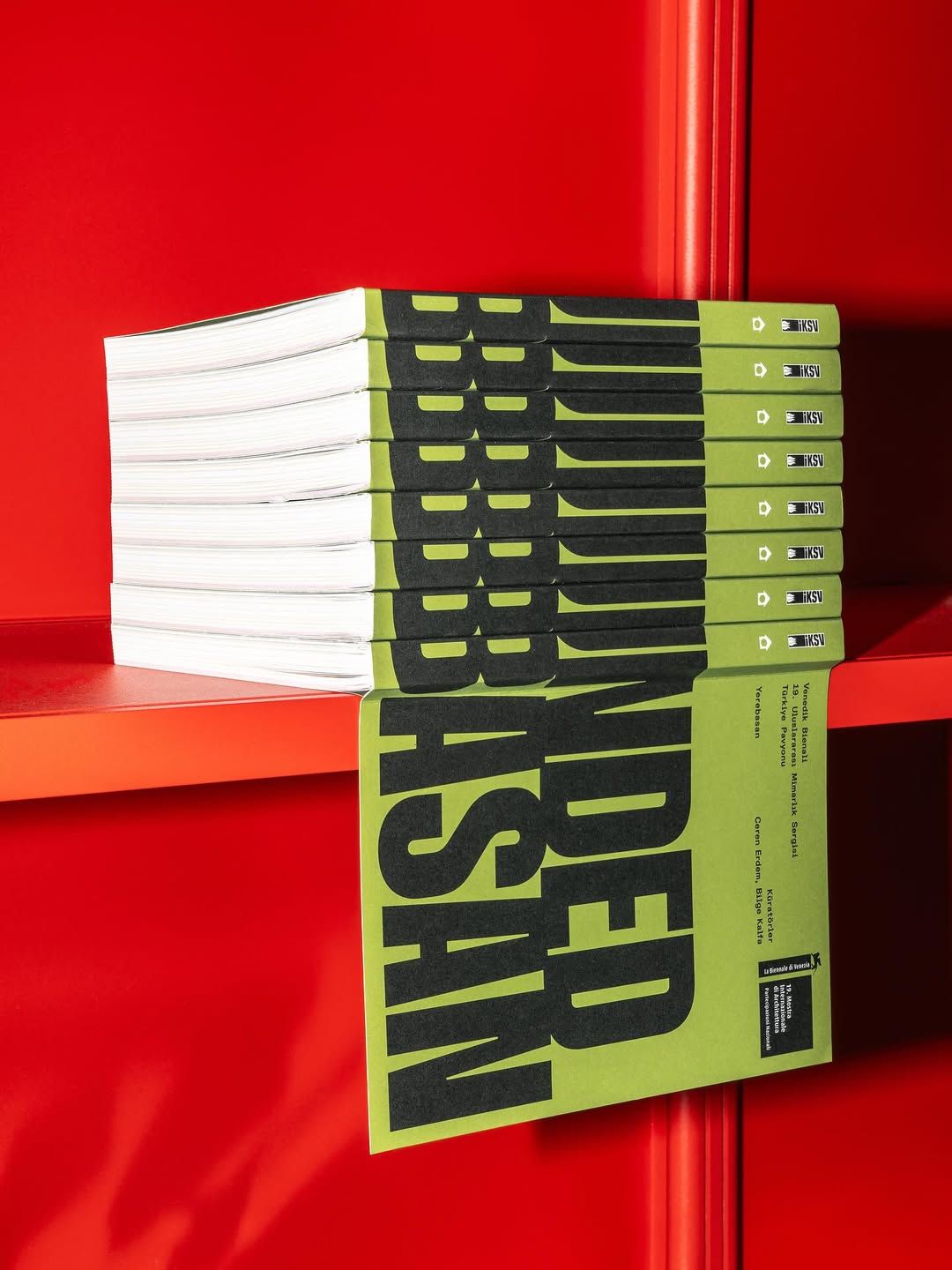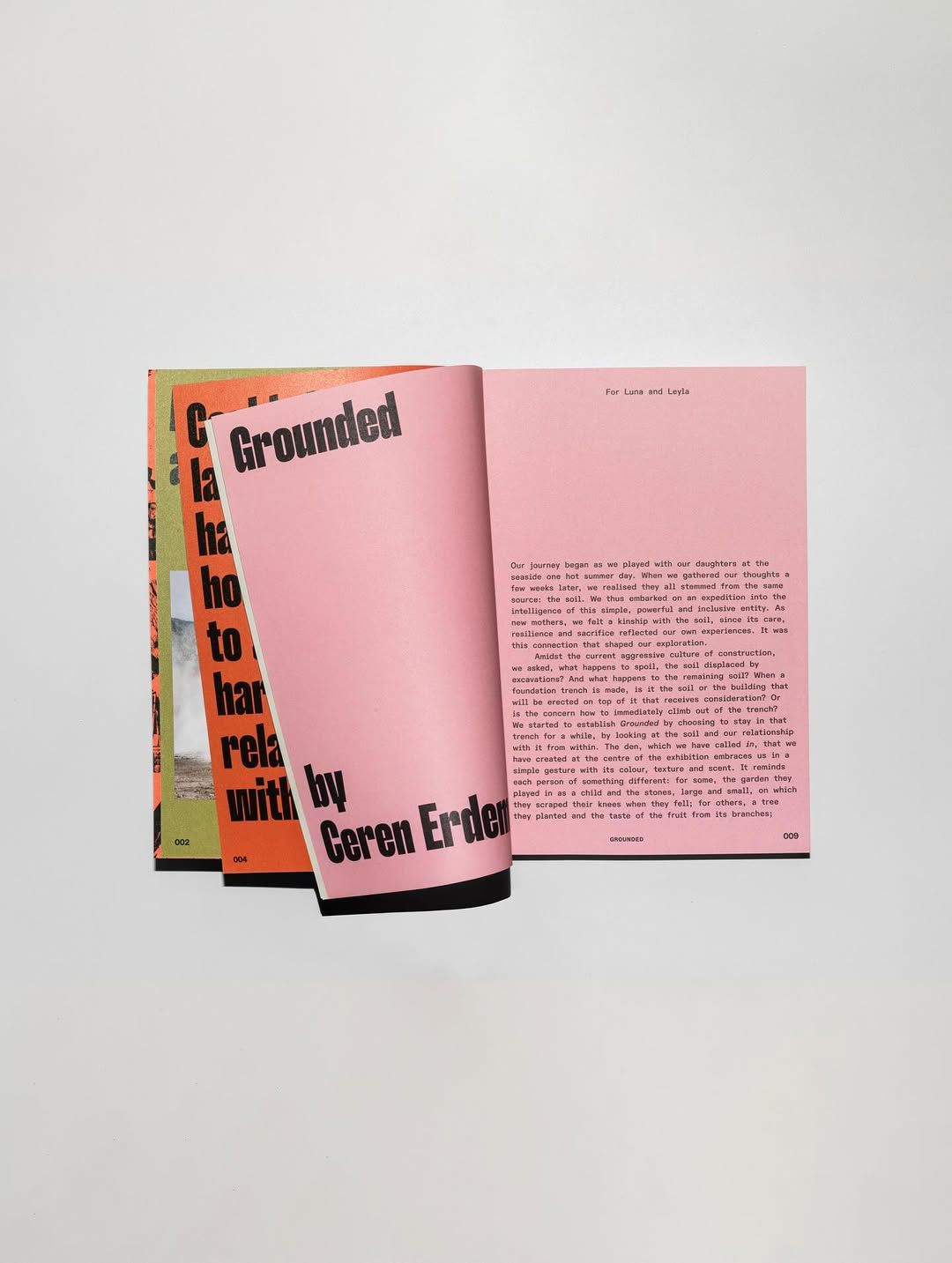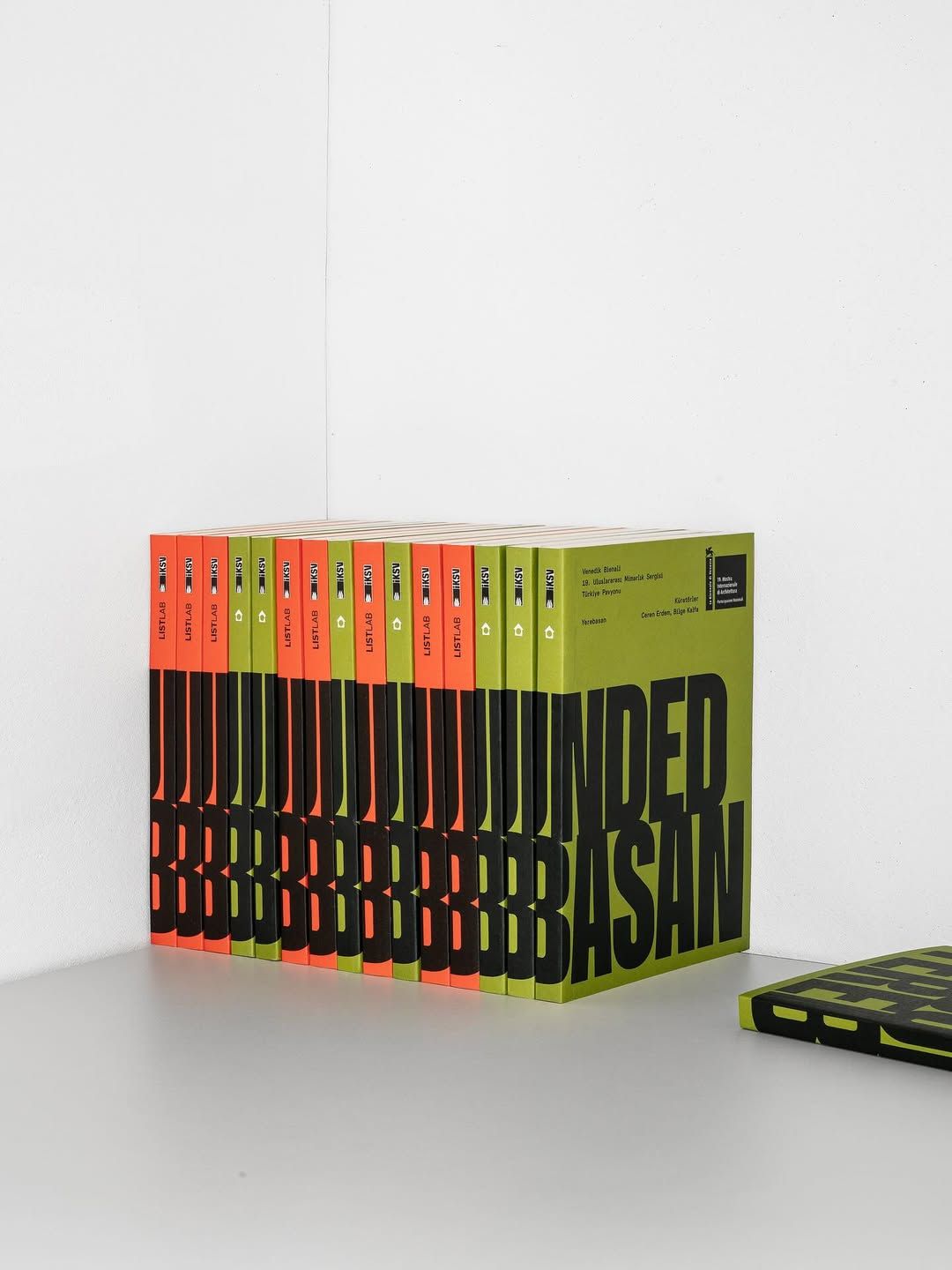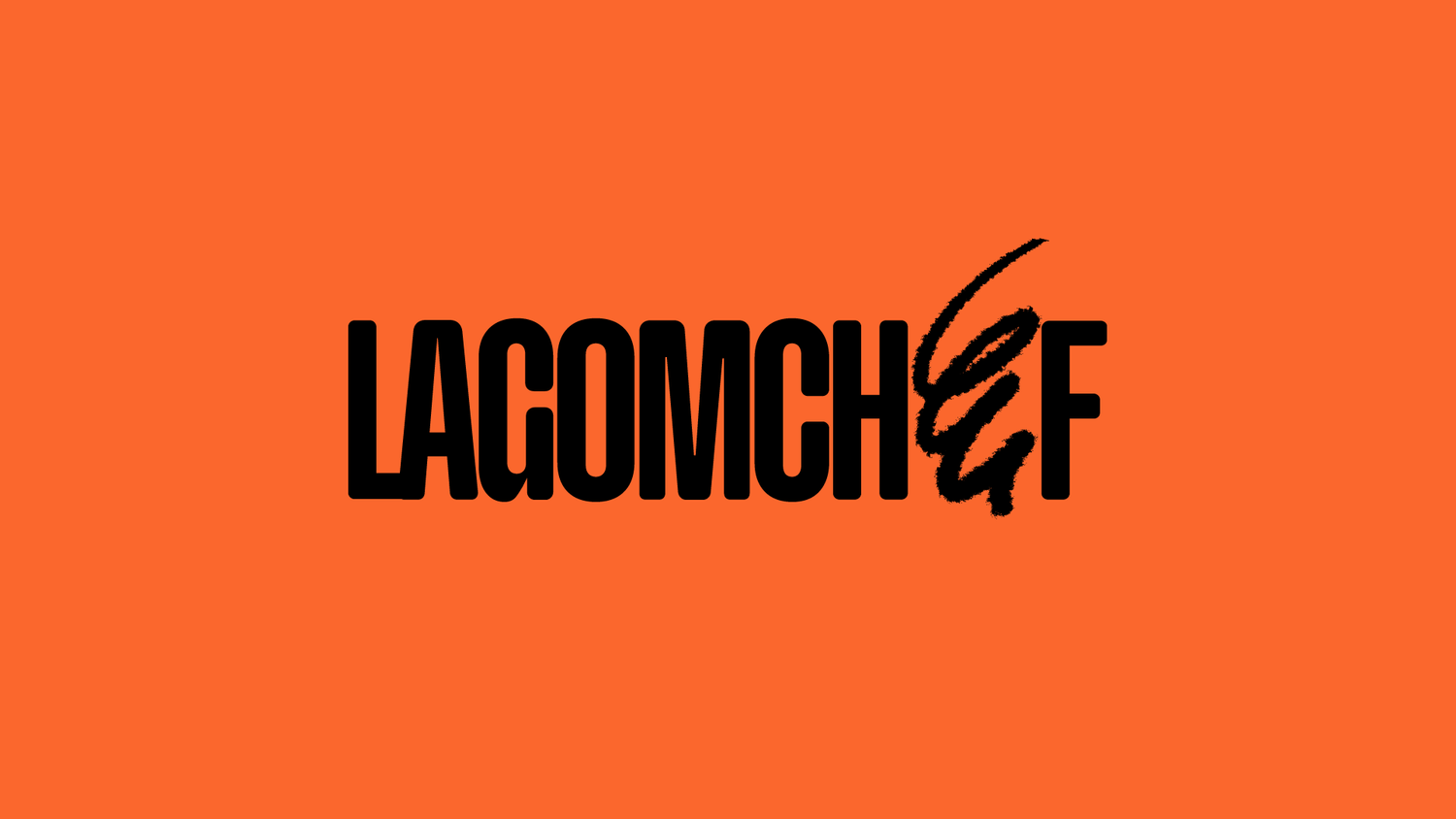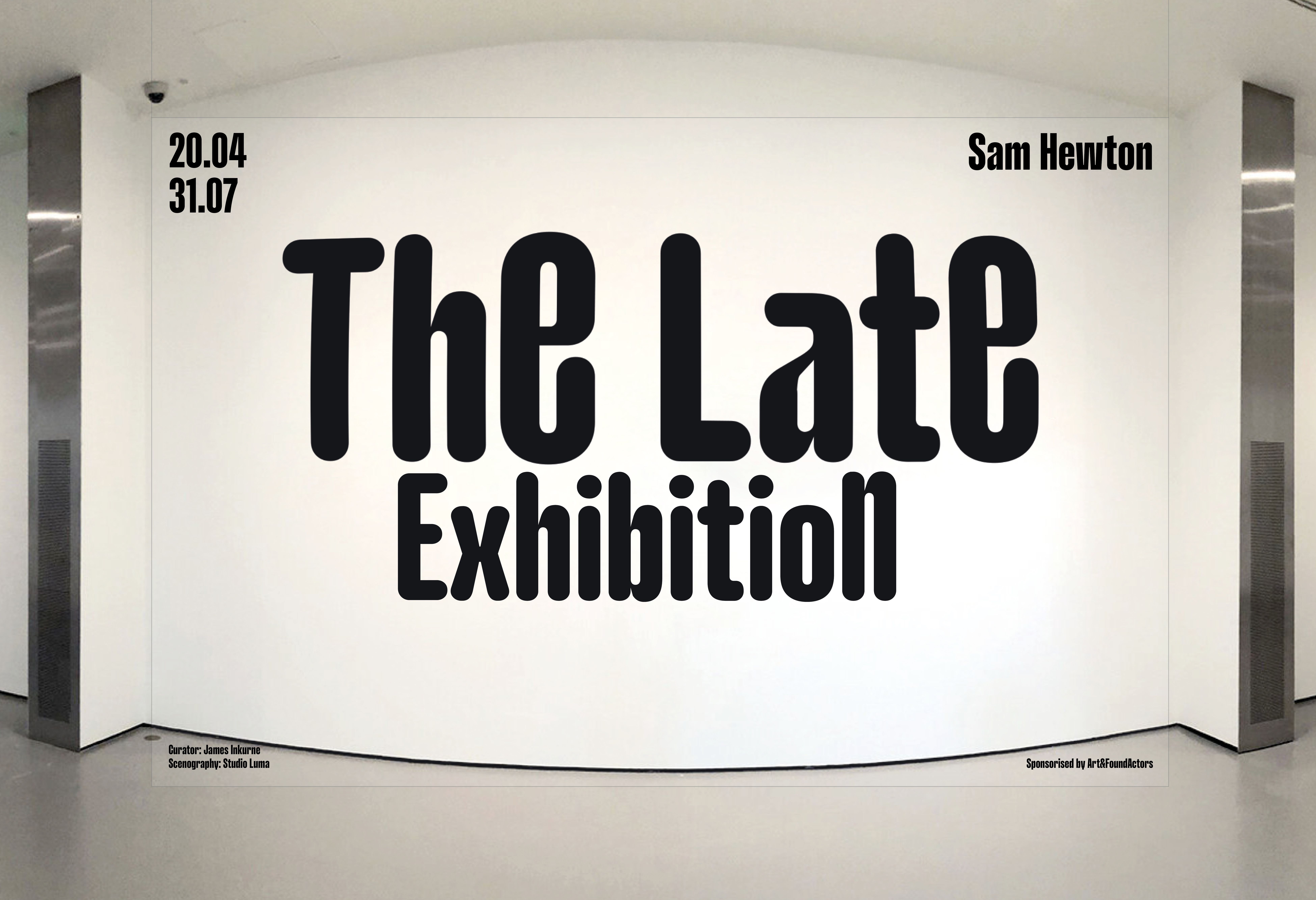
Hop Compressed
The Hop Compressed typeface is a compact, "Impact"-inspired font style. The main features brought here to stand out from these existing compact styles and to explore this kind of font, resides in a calligraphic approach in the connection between the stems and the bowls, offering a wide range of weights, switch to a rounded companion in all styles and to conclude a fun stylistic set to bring lowercase letters to the top of uppercase.
Hop Compressed includes two families: Hop Compressed Normal for strong and straight letterforms. The Hop Rounded for smooth and soft sensations.
The Hop Compressed font is also a variable font, 2 axes (Weight 'wght' / Custom 'cstm') with which you can choose the weight, from 100 (Thin weight) to 900 (Ultra weight) - the corner radius from 0 (none) to 100 (fully rounded).
Rounded or not to be? That is the question. As a famous English man might have said :)
Design: Adrien Midzic
Production: PizzaTypefaces